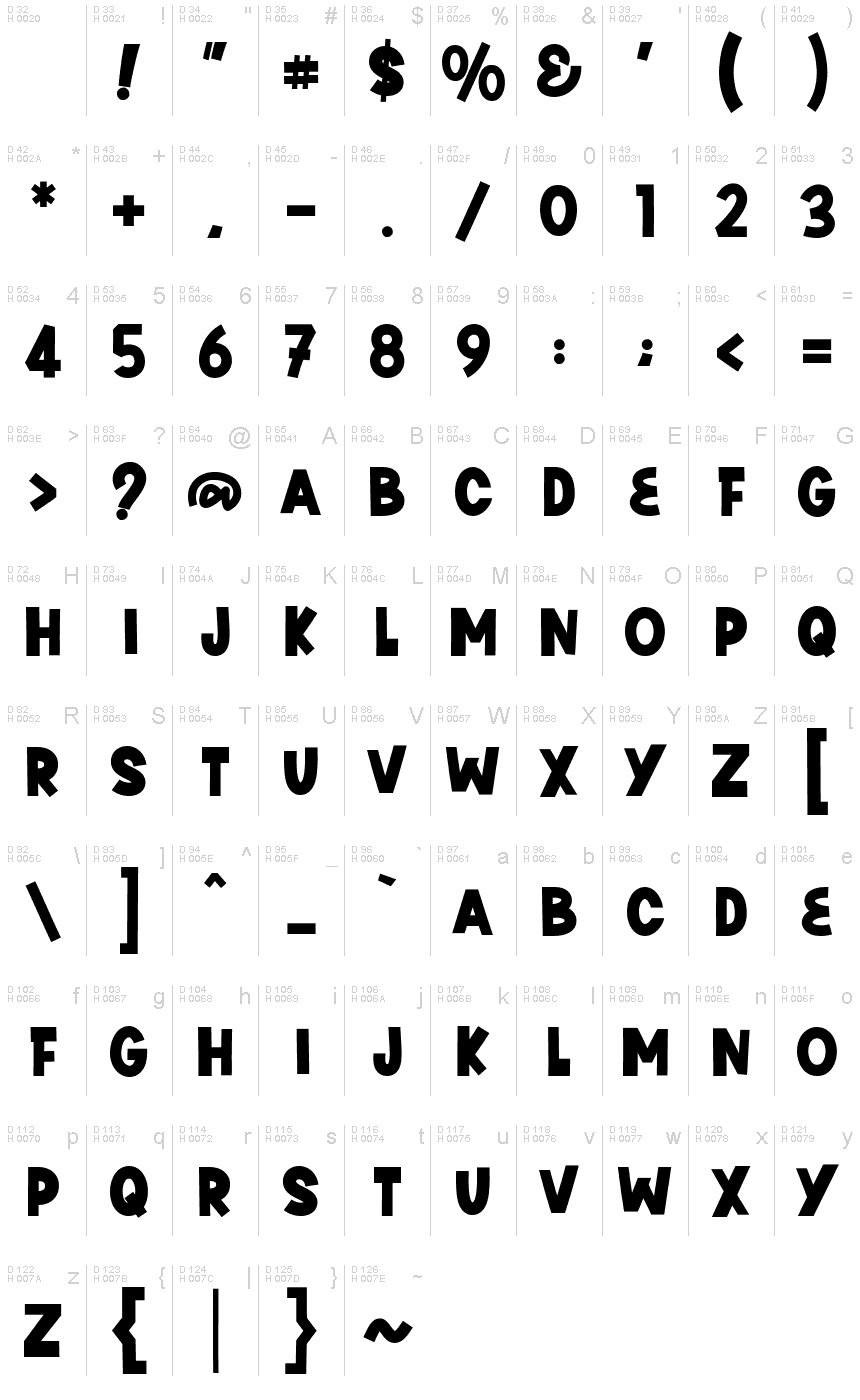
Richu Mast Regular
Richu Mast is a bold and vibrant display font designed by Mabhal Studio. With its comic style, this font injects a playful element into your projects. Perfect for children's books and posters, Richu Mast adds a touch of whimsy to any design. Its bold weight ensures that your headlines and titles stand out, while its eye-catching display typeface catches the attention of viewers. Whether you're working on a logo, packaging design, or social media graphics, Richu Mast brings a sense of fun and creativity to your projects.